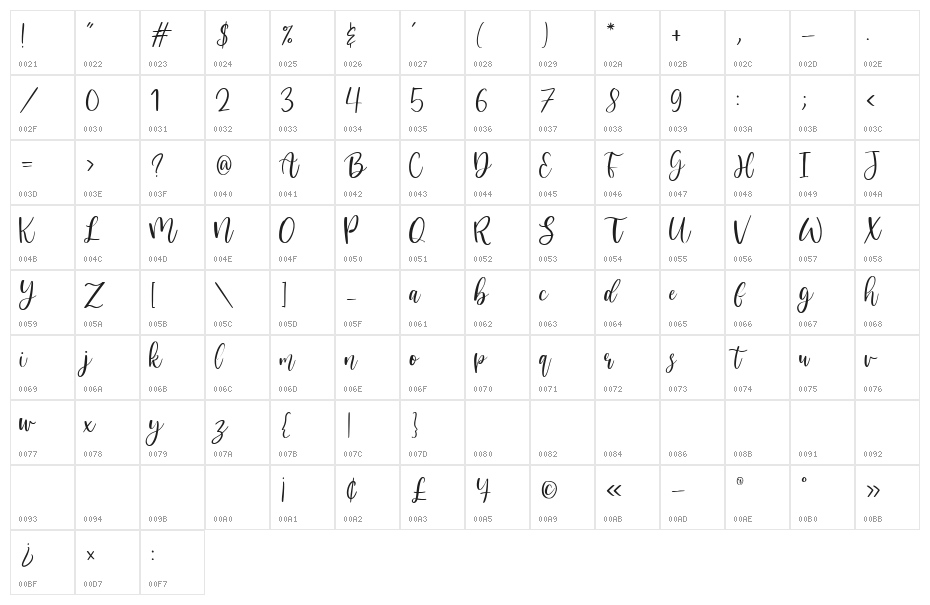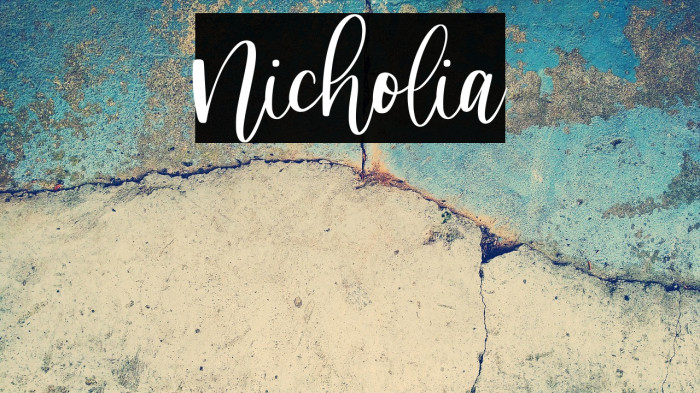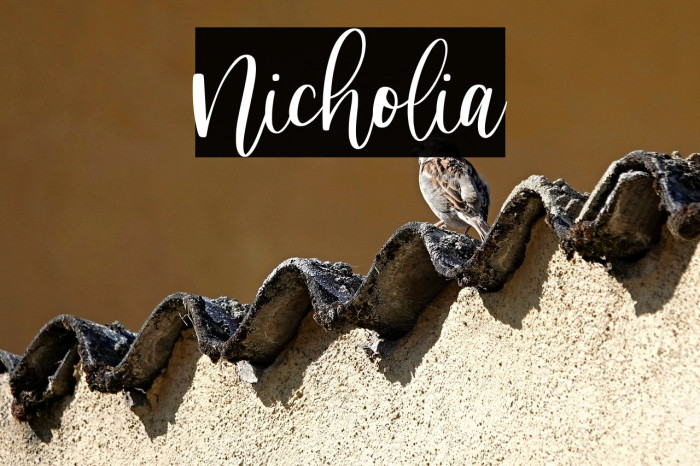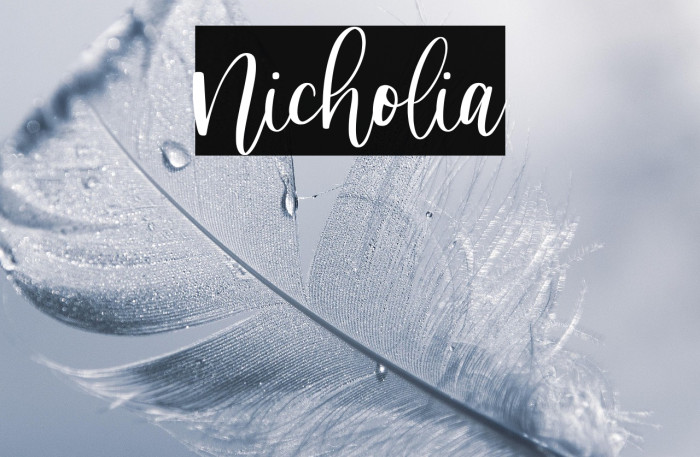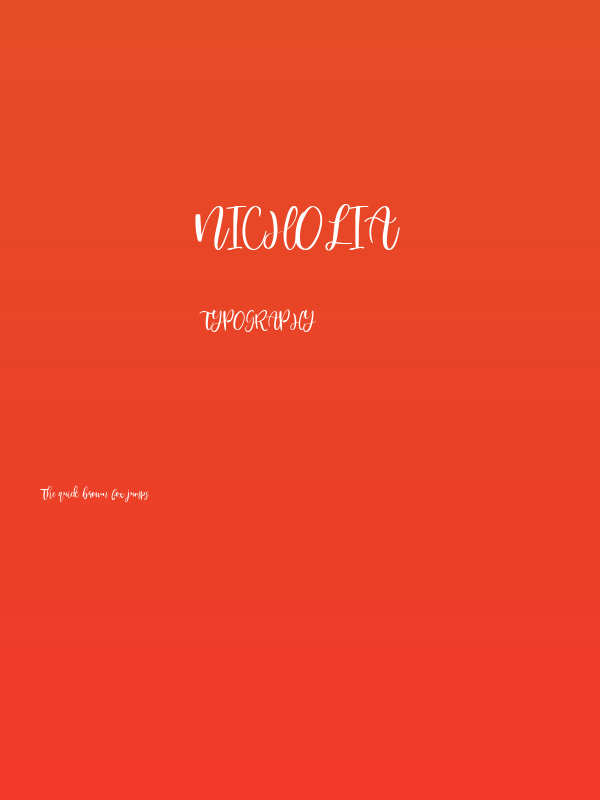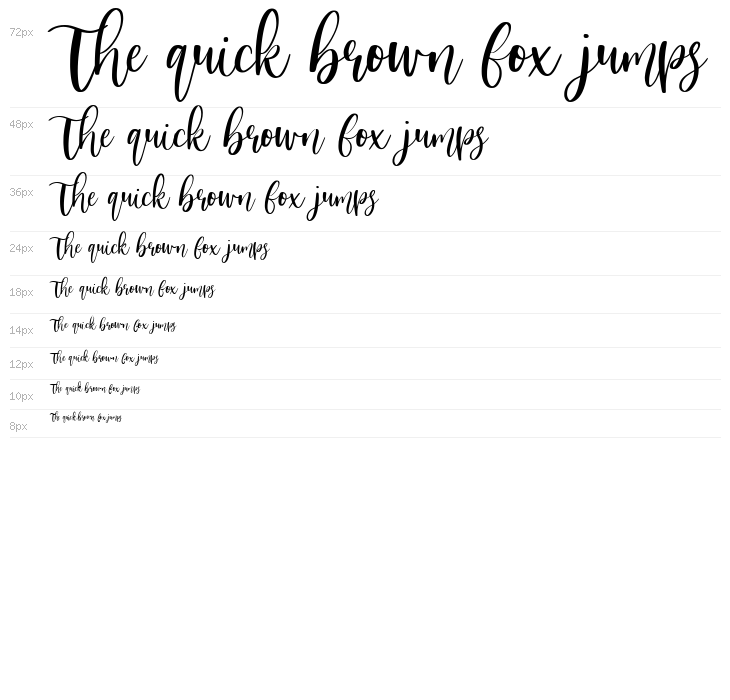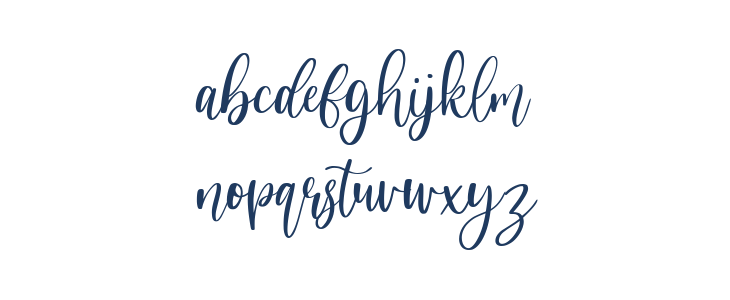
Nicholia Font
Nicholia Description
This font features an elegant and flowing script style, characterized by its smooth, cursive letterforms that mimic the fluidity of handwriting. The uppercase letters are ornate with sweeping curves and loops, while the lowercase letters maintain a consistent, graceful flow. The numerals and special characters are designed to complement the overall script style, maintaining the same fluidity and elegance. This font exudes a sense of sophistication and charm, making it ideal for projects that require a personal, handwritten touch.
Overall StyleElegant, Handwritten
Use CaseLogos, Invitations, Personal stationery
Proposed ProjectsIdeal for wedding invitations, greeting cards, branding, and personal stationery.